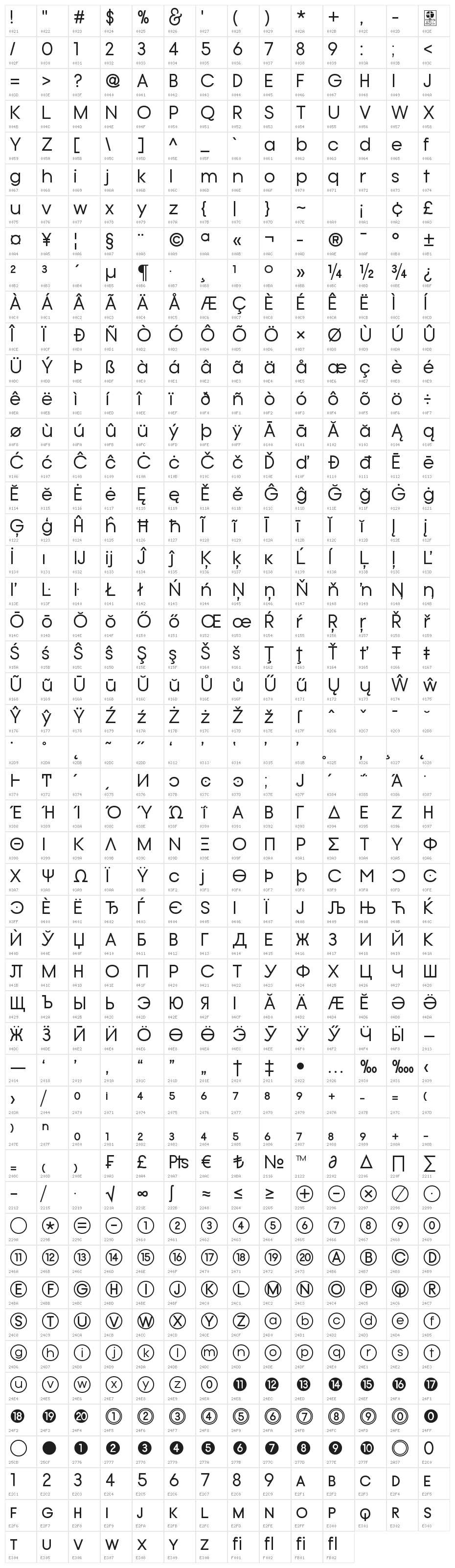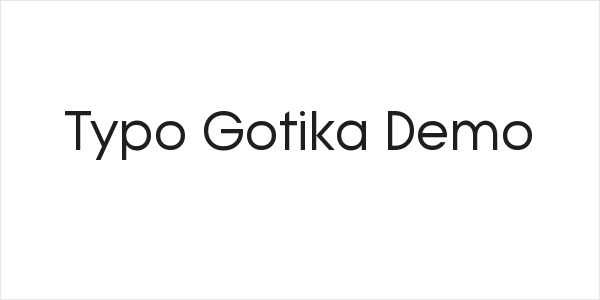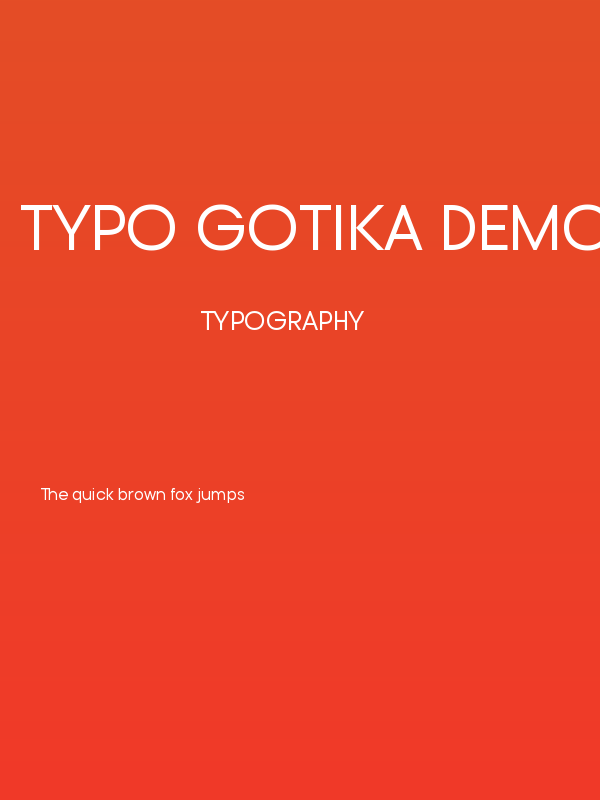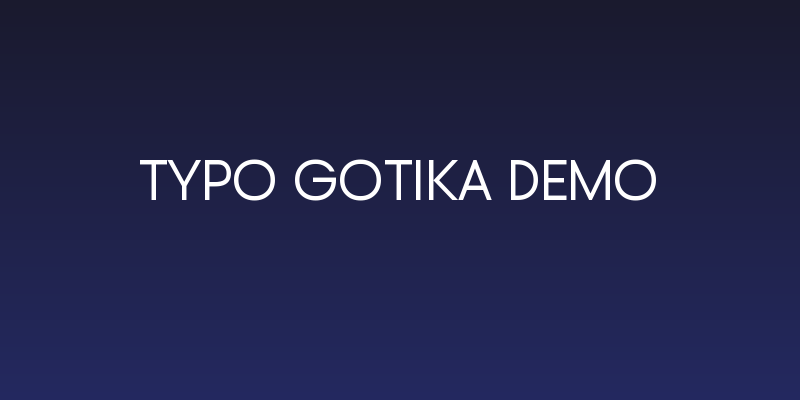
Typo Gotika Demo Font
Typo Gotika Demo Description
This font features a clean and modern aesthetic with a geometric sans-serif style. The characters are well-proportioned, offering a harmonious balance between straight lines and subtle curves. The uppercase letters are bold and commanding, while the lowercase letters maintain a friendly and approachable appearance. The numerals are clear and easy to read, making them suitable for various applications. Special characters are included, providing versatility for different design needs. Overall, the font exudes a contemporary vibe, making it ideal for modern branding and design projects.
| Proposed Projects | Ideal for branding, advertising, web design, and editorial layouts. |